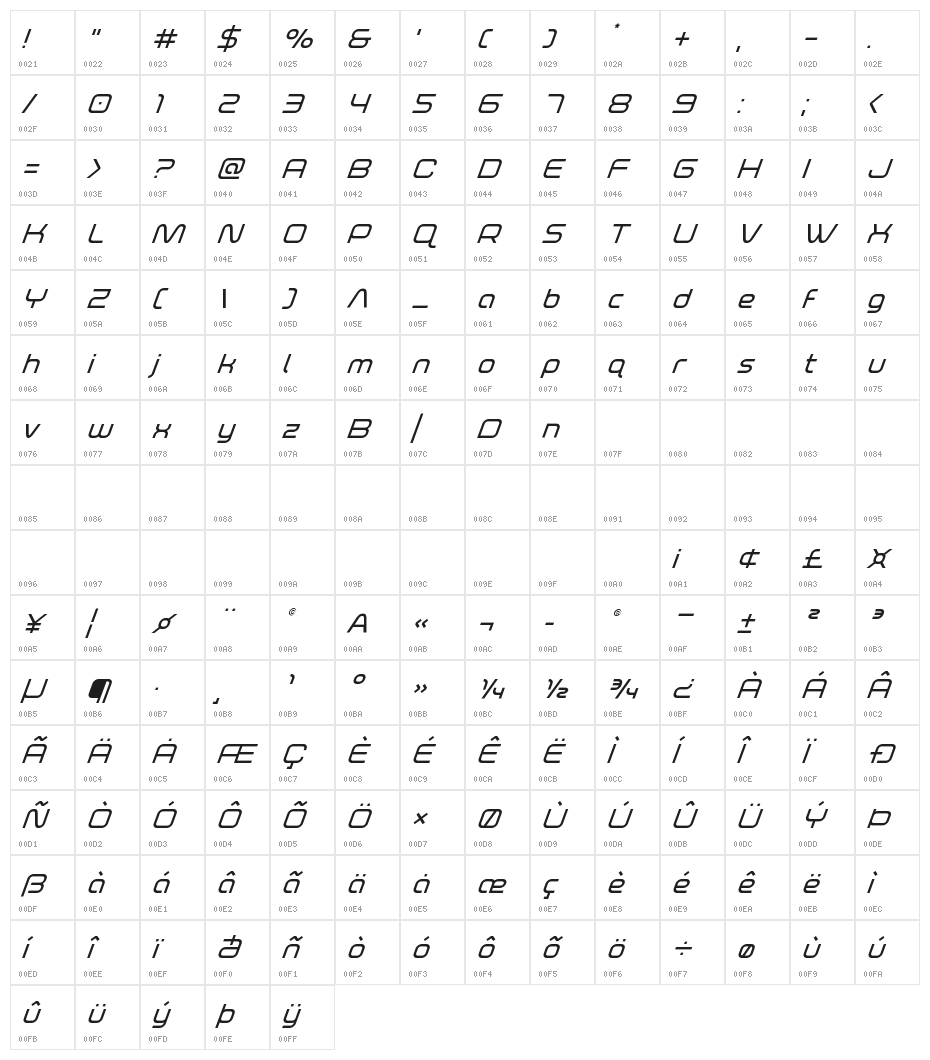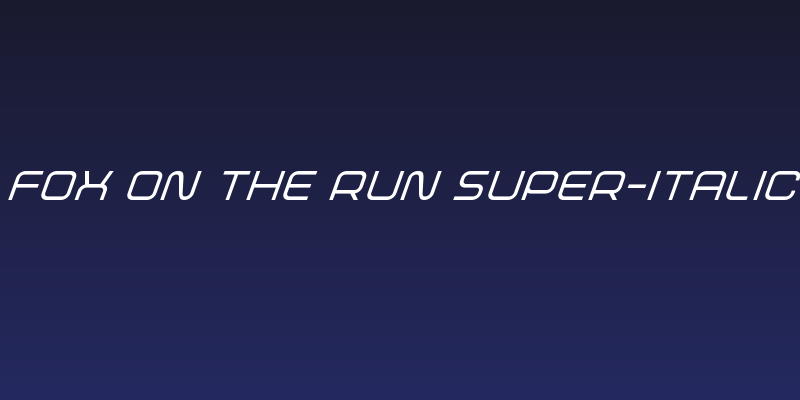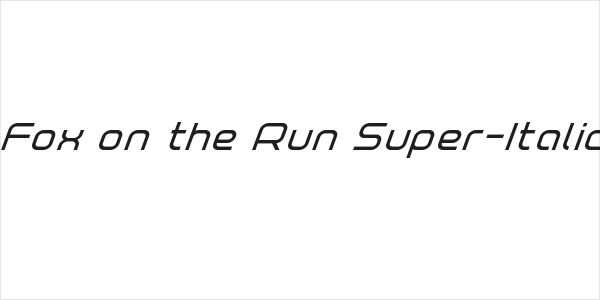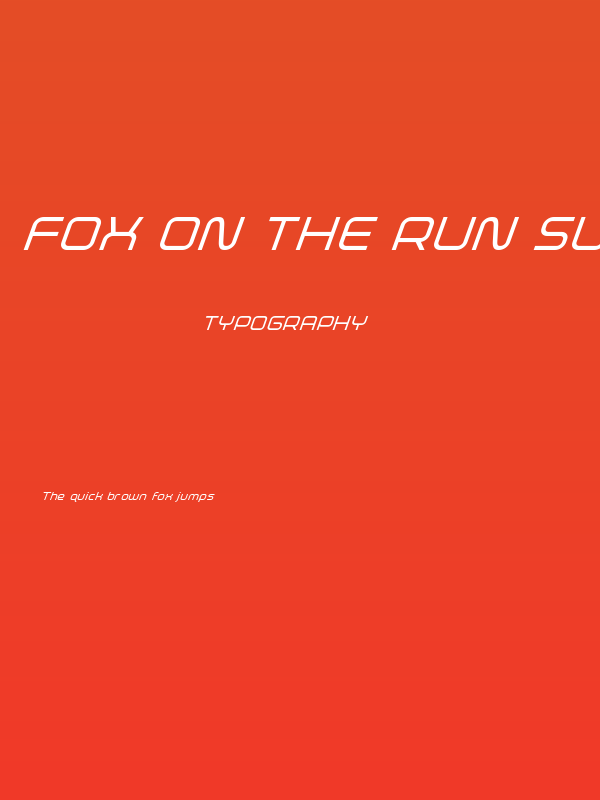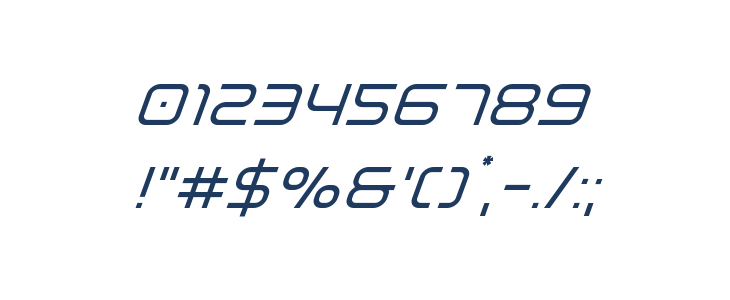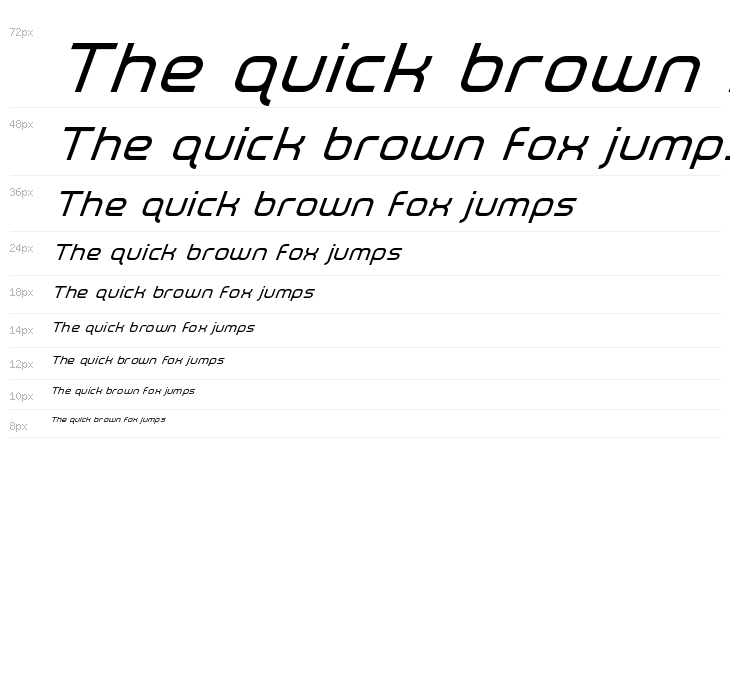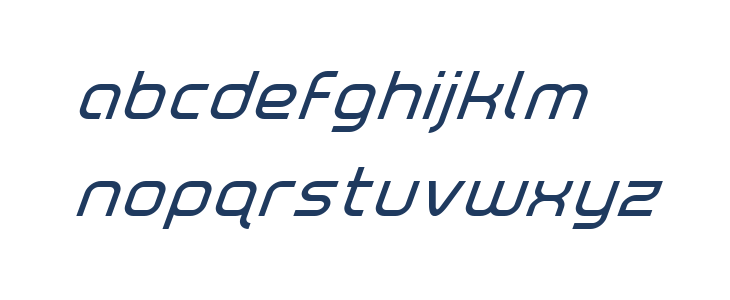
Fox on the Run Super-Italic Font
Fox on the Run Super-Italic Description
This font features a sleek, modern design with a distinct italic slant, giving it a dynamic and forward-moving appearance. The characters are crafted with smooth curves and sharp edges, creating a sense of speed and agility. The uppercase and lowercase letters maintain a consistent style, with a slight variation in stroke thickness that adds visual interest. The numerals and special characters are designed to complement the letters, maintaining the overall aesthetic. This font is perfect for projects that require a contemporary and energetic feel.